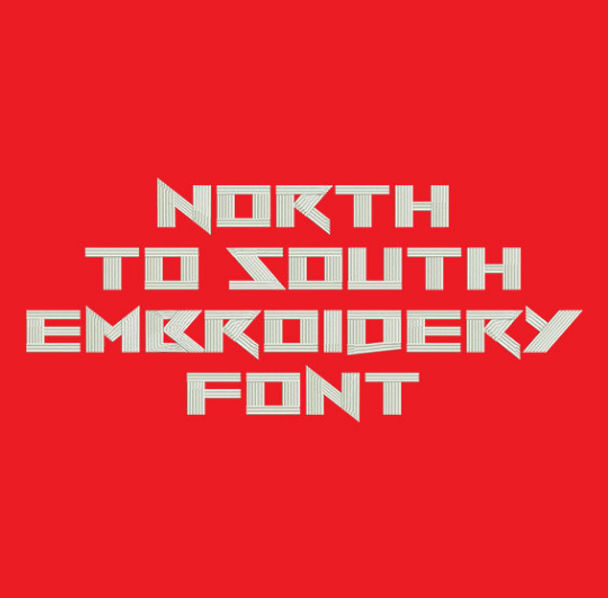
North to South Font
Title: North To South Machine Embroidery Font
This North To South font is perfect for personalizing clothes, bags, towels and linens!
Not sure yet where I will use this. It is unusual